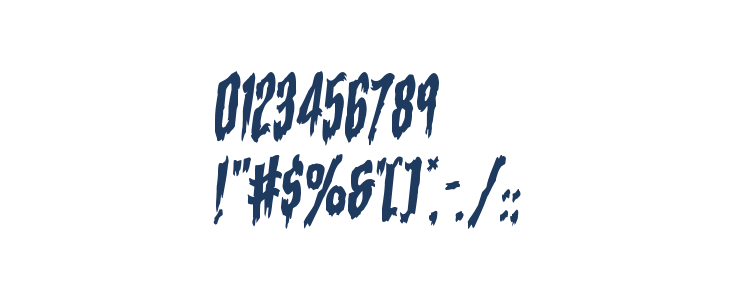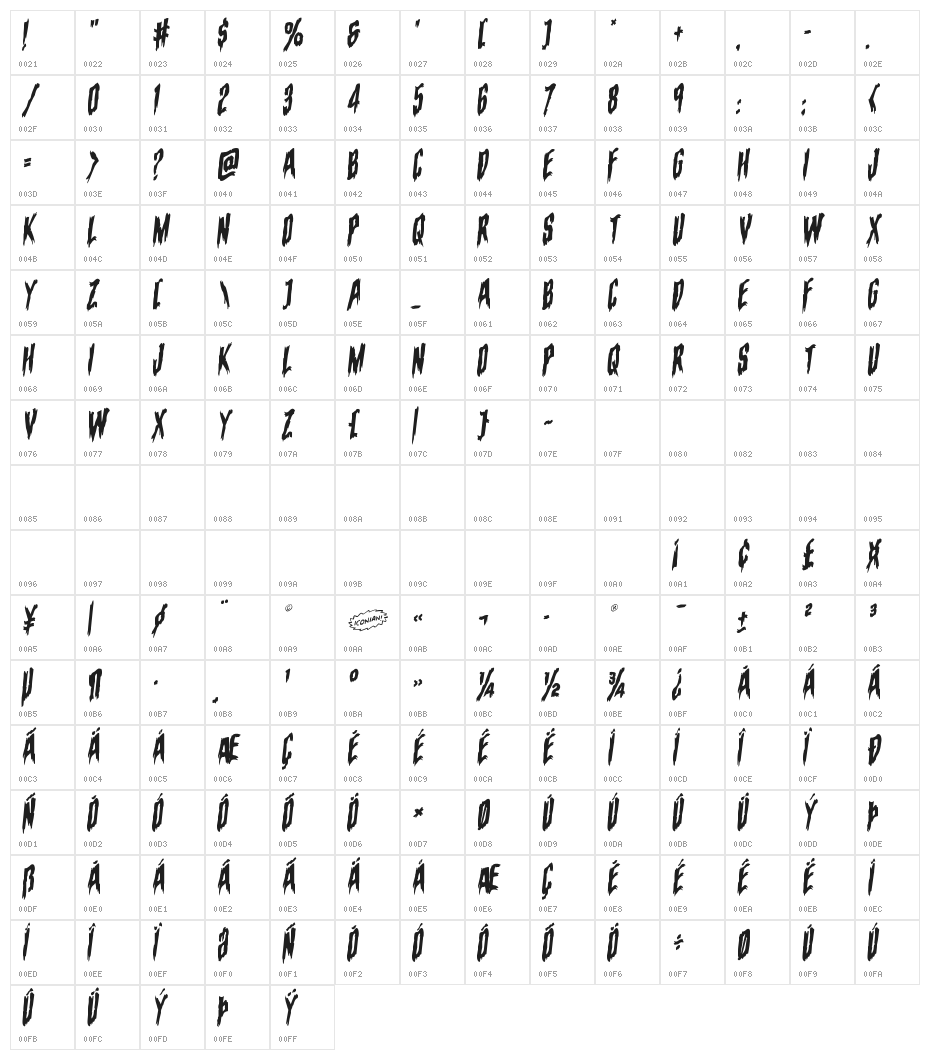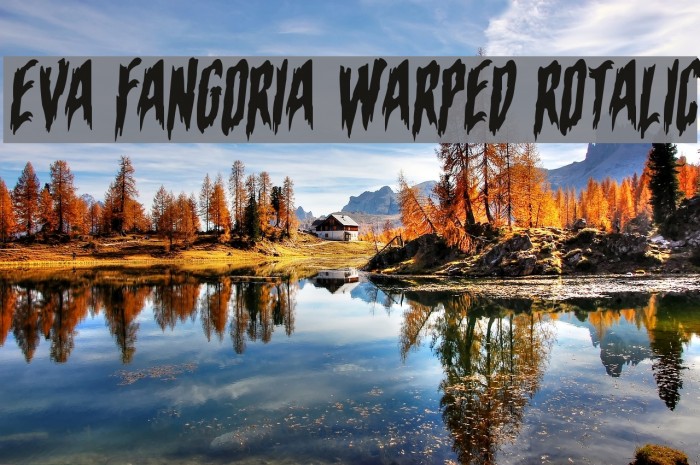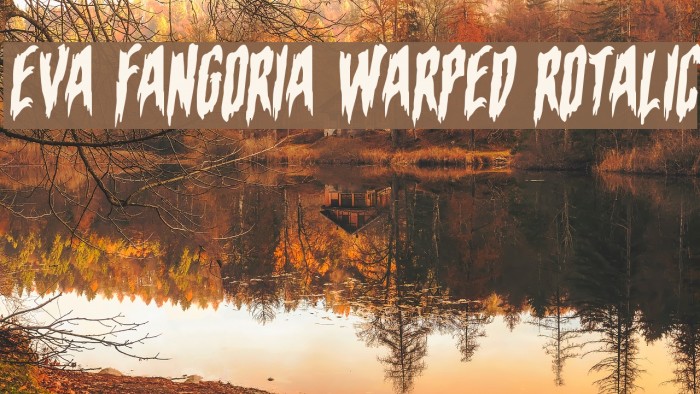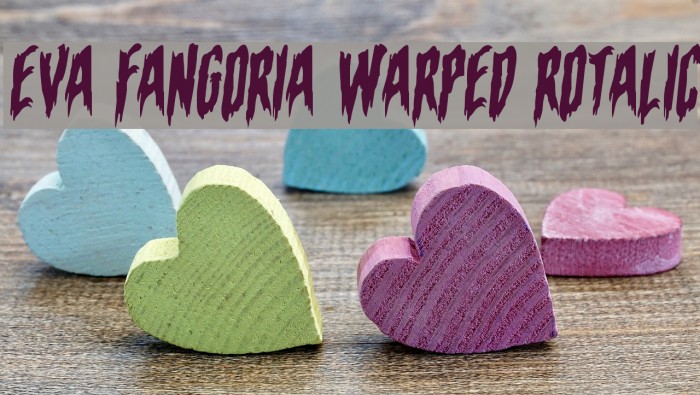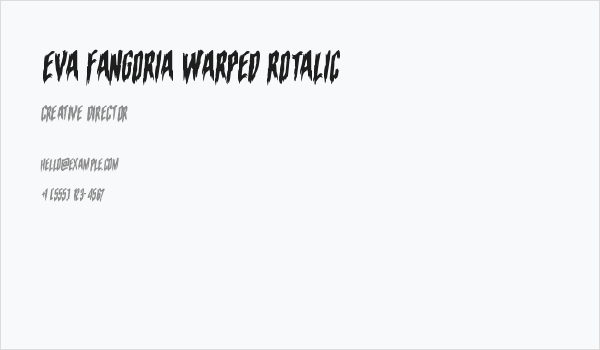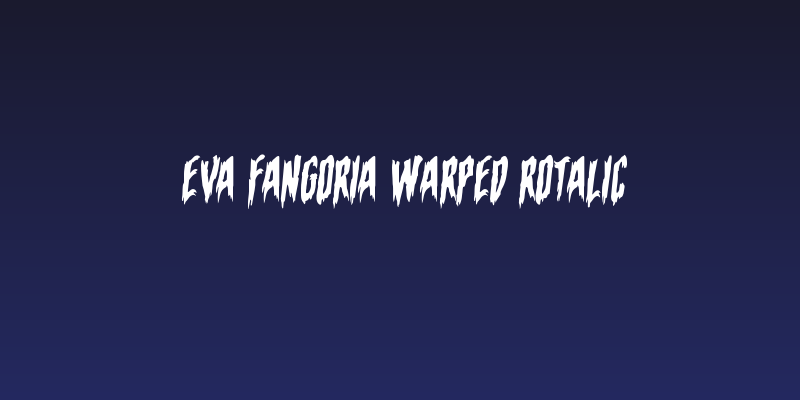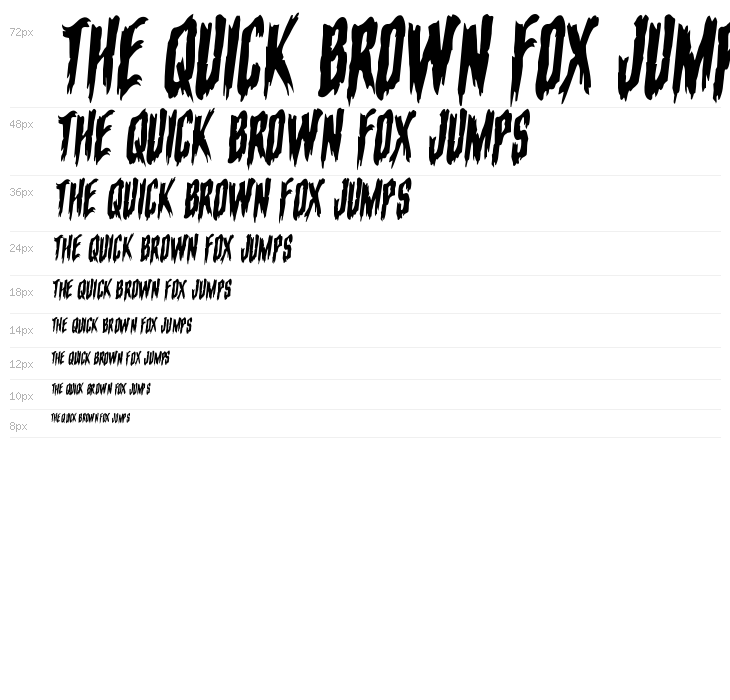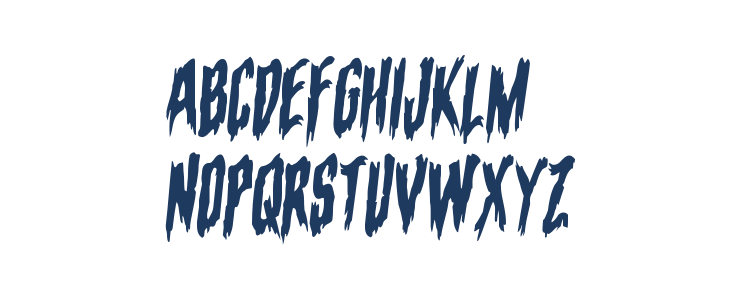
Eva Fangoria Warped Rotalic Font
Eva Fangoria Warped Rotalic Description
This font exhibits a bold, jagged style with a distinctly warped appearance, reminiscent of horror or thriller themes. The letters are sharply angled and irregular, giving an impression of movement or distortion. The uppercase and lowercase letters maintain a consistent style, with exaggerated serifs and pointed edges that create a sense of urgency and drama. Numbers and special characters follow the same aesthetic, ensuring a cohesive look across all text elements. The font's unique design makes it stand out, ideal for projects that require a striking and unconventional typeface.
| Use Case | Headlines, Posters, Logos |
| Proposed Projects | Perfect for horror movie posters, Halloween event flyers, edgy graphic novels, or any project needing a dramatic and eye-catching typeface. |